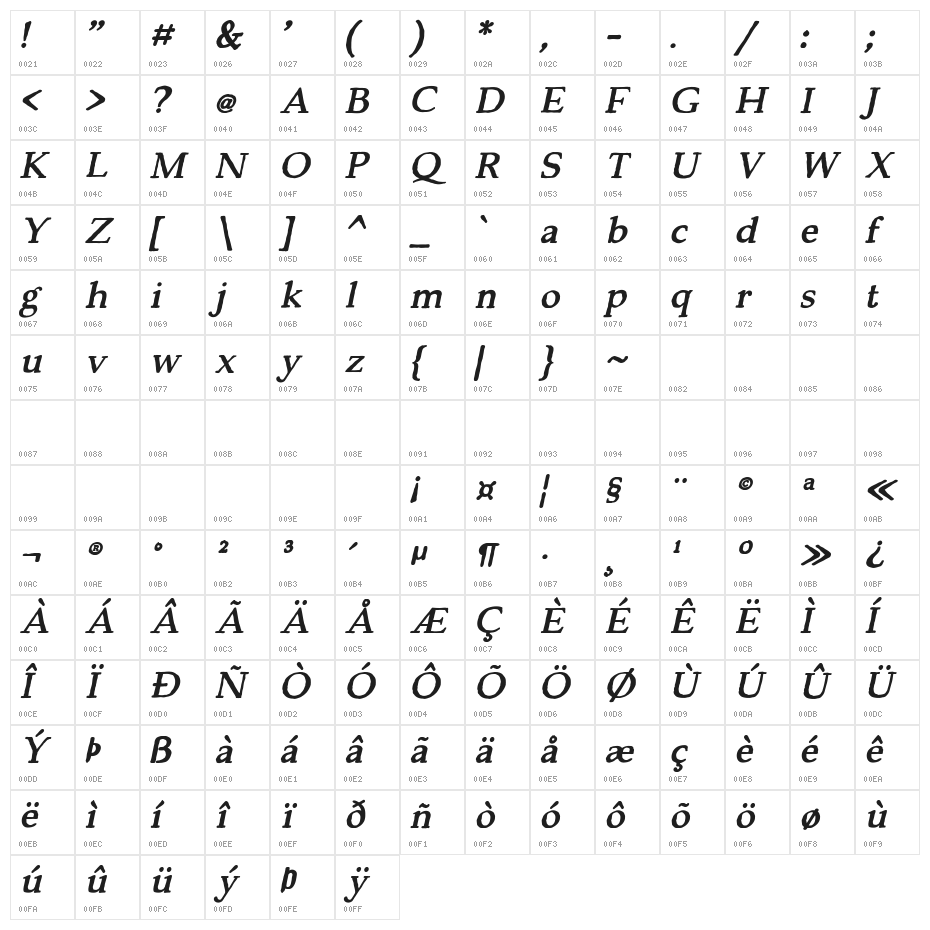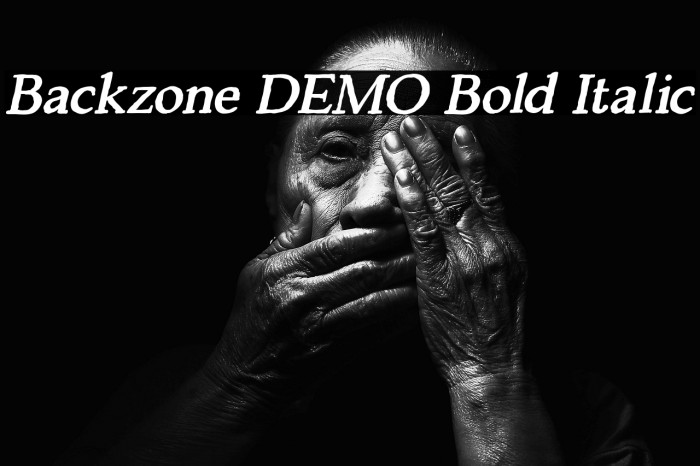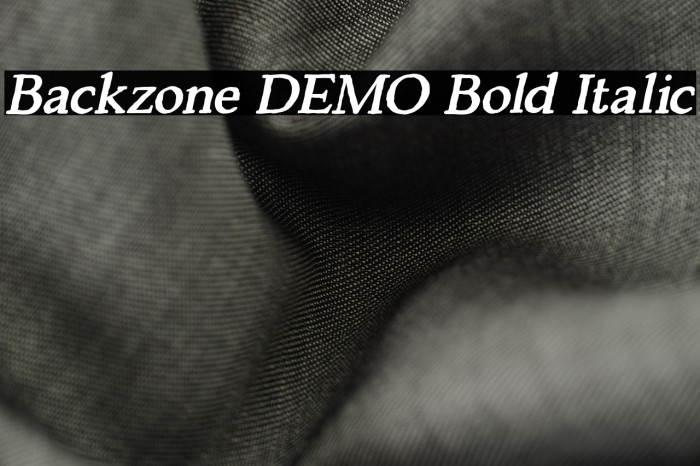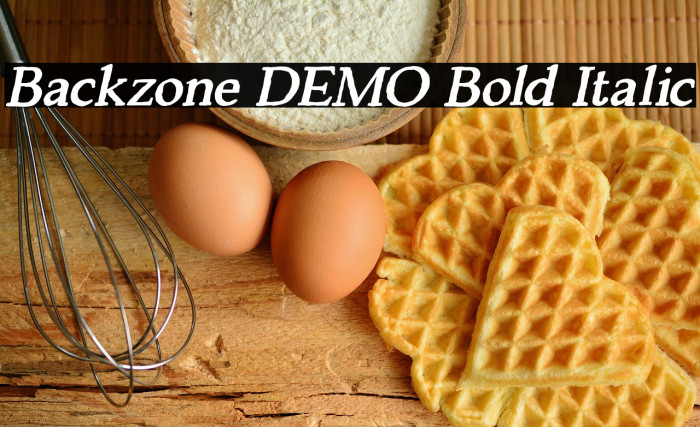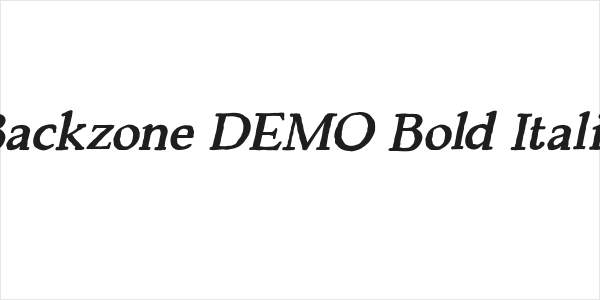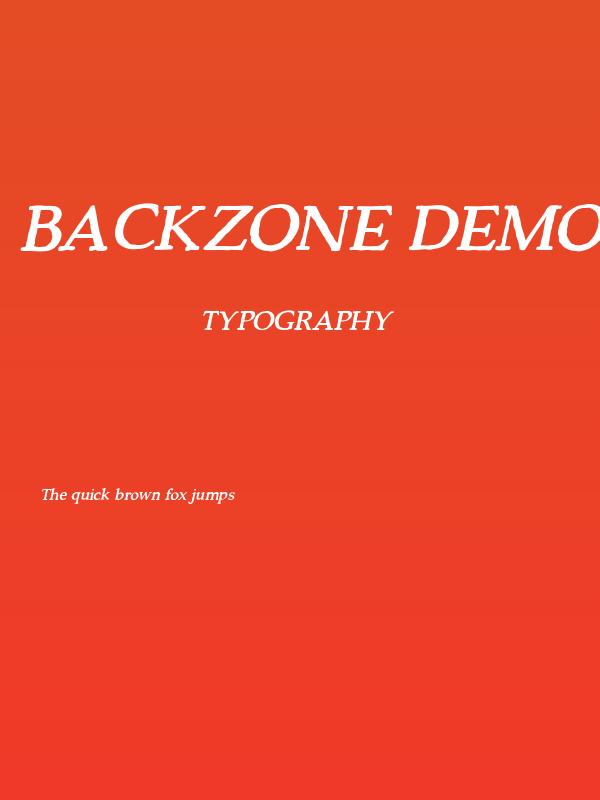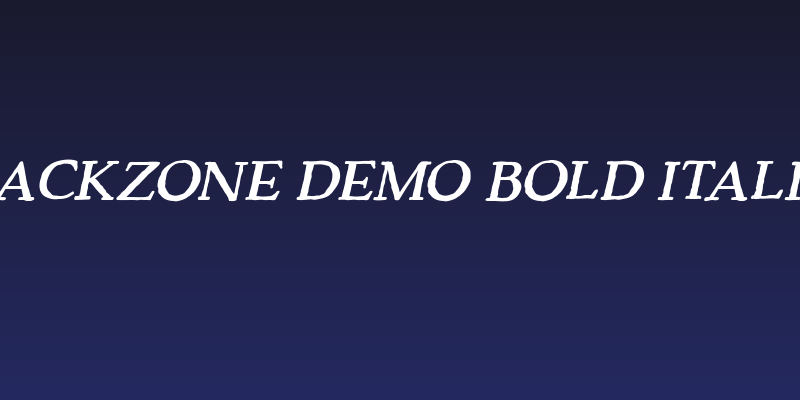
Backzone DEMO Bold Italic Font
Backzone DEMO Bold Italic Description
This font exhibits a bold and italicized style, characterized by its dynamic and slanted appearance. The uppercase and lowercase letters are designed with a strong emphasis on curves and angles, giving it a distinctive and energetic look. The numerals and special characters maintain the same bold and italicized style, ensuring consistency across all glyphs. The strokes are thick and robust, providing a sense of strength and presence. The italic slant adds a sense of motion and fluidity, making it suitable for dynamic and engaging designs.
| Proposed Projects | Ideal for branding, advertising, and headlines where a bold and dynamic presence is required. |